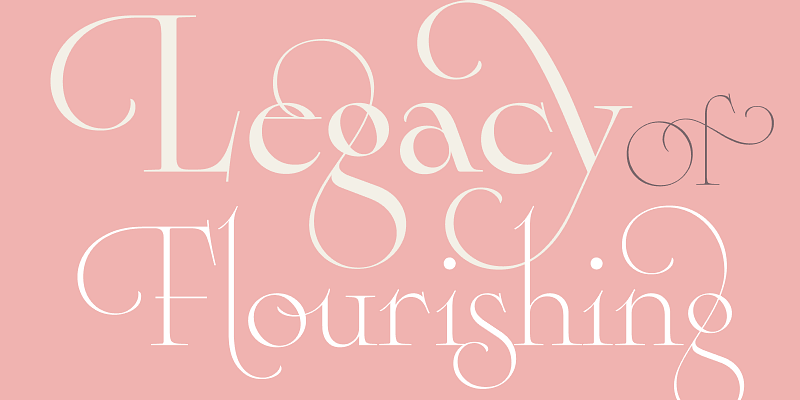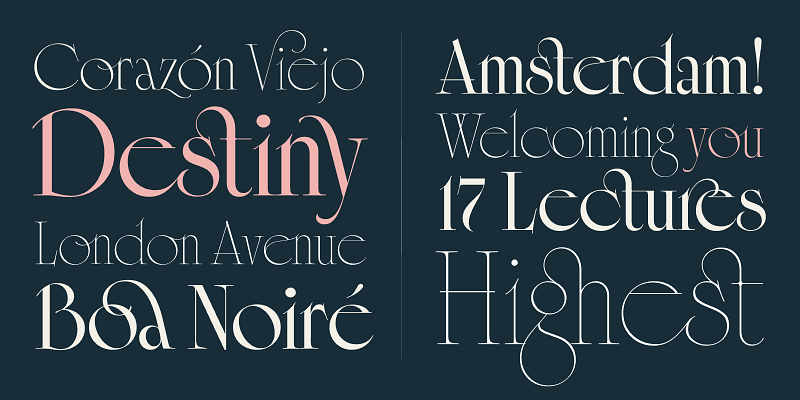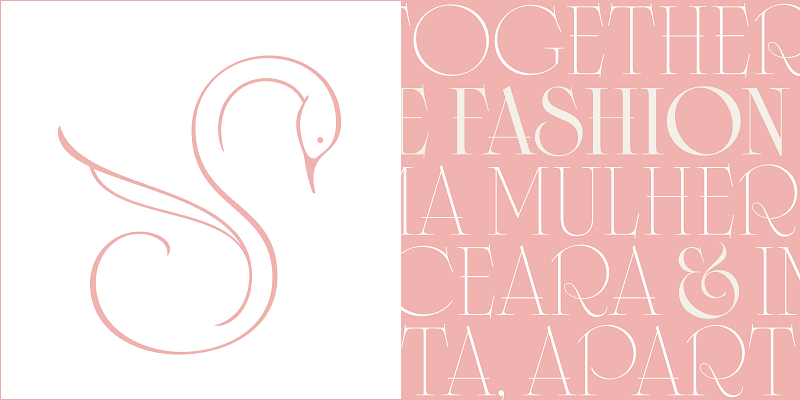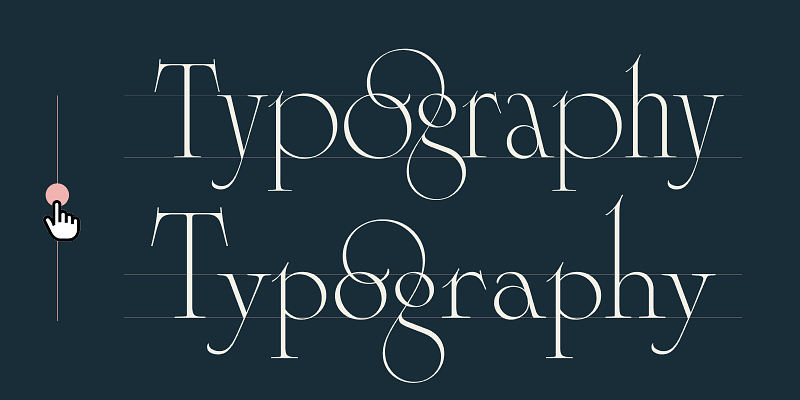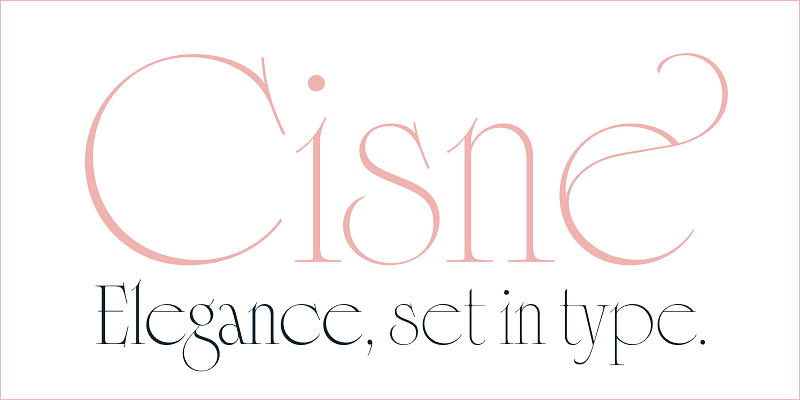
Cisne is a display serif built on a tension: tightly packed vertical strokes against large, open, near-perfect circular forms. It began as an ode to Stunt Roman, Ross F. George’s Art Deco alphabet from the 1929 Speedball Lettering Manual, known for its expressive swashes and refined curves—an alphabet made, in George’s words: to show off.
Sproviero pushes that logic further, with deeper swashes, pronounced serifs, subtle ligatures, and a range of alternates. Like a swan, Cisne moves smoothly on the surface while holding a more complex structure underneath. Weight and x-height axes extend that range across sizes and weights, suited to editorial and branding work that demands presence and refinement.